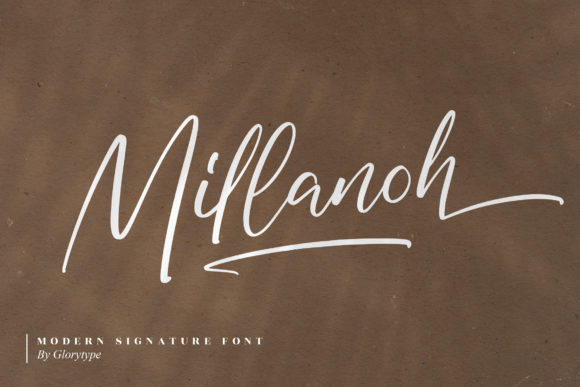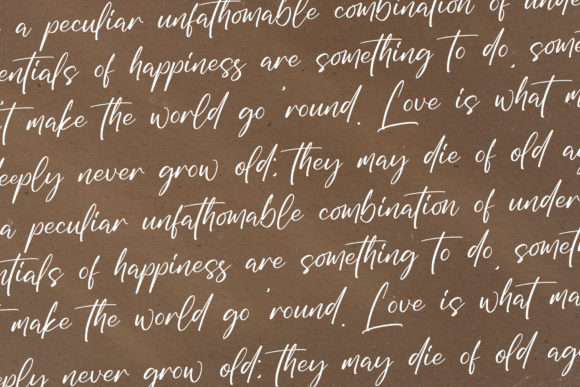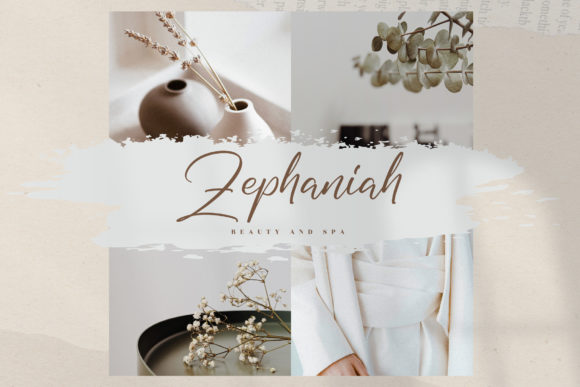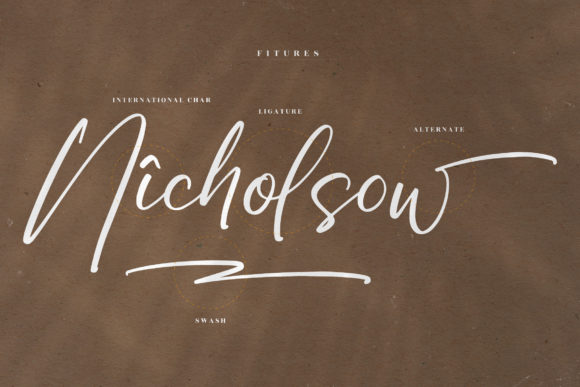
About Millanoh Font
Millanoh is a beautiful calligraphy typeface with characters that dance along the baseline. It will add a luxury spark to any design project that you wish to create! This font is PUA encoded which means you can access all of the amazing glyphs and ligatures with ease!